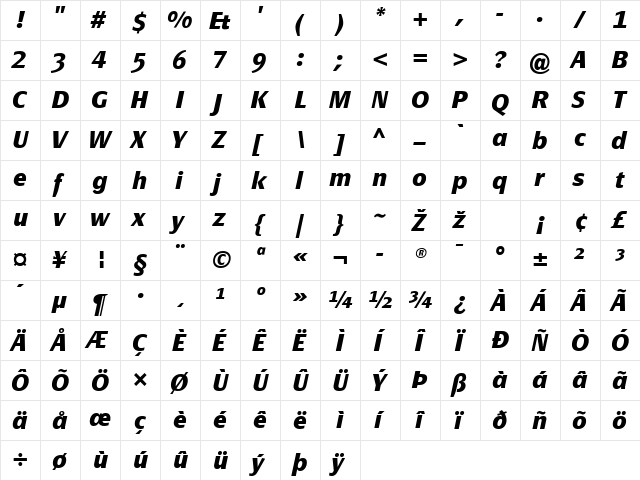
PageSansTF-BoldItalic Regular
| Foundry | Albert Boton, published by FontShop International for the FontFont Library |
| Designer | Albert Boton |
Design Context for PageSansTF-BoldItalic Typeface
PageSansTF-BoldItalic is a composed and adaptable typeface that performs quietly and consistently across a wide range of design contexts. Its italic angle brings a sense of urgency and motion to the letterforms. The heavy weight commands attention and anchors typographic hierarchies.